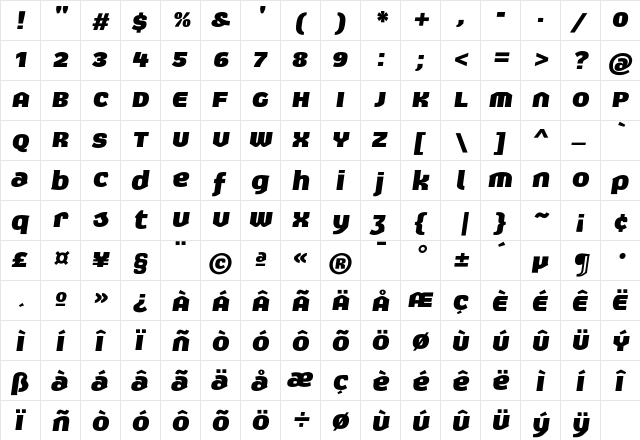
Exert BlackItalic
Design Context for Exert Typeface
Exert offers clean, dependable letterforms without strong stylistic allegiance, making it a practical choice for designers who need flexibility. The slanted form adds forward momentum and visual energy.
Pro Tip: Use Exert for emphasis, pull quotes, and subheadings where its slanted energy can add rhythm to the layout.